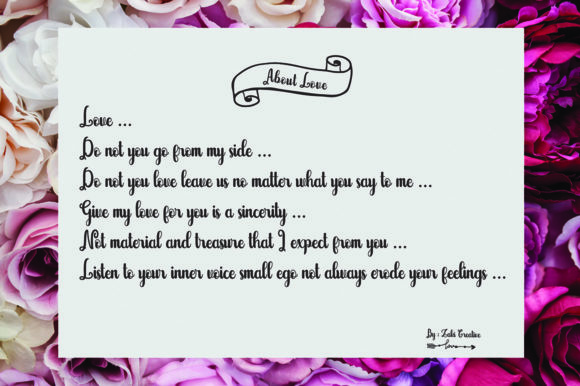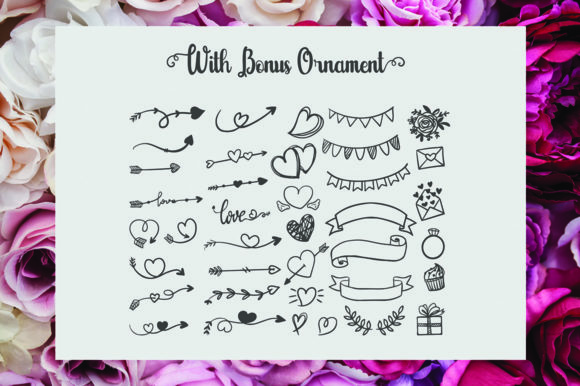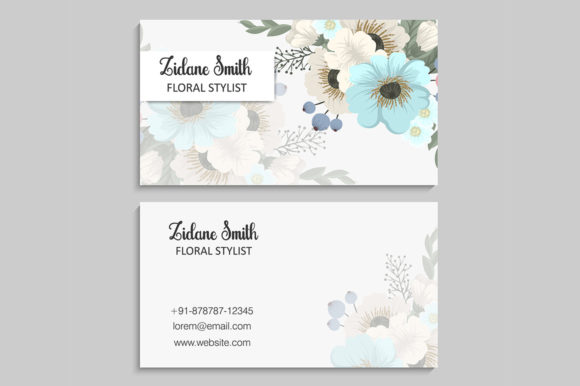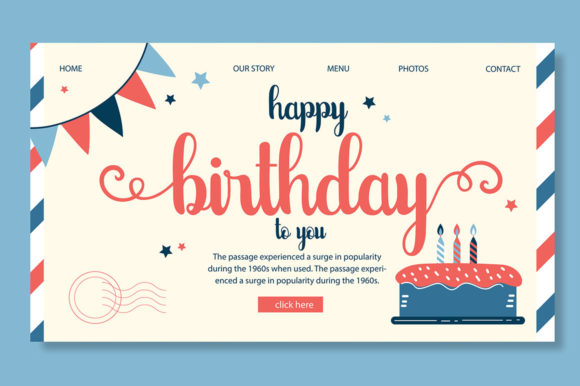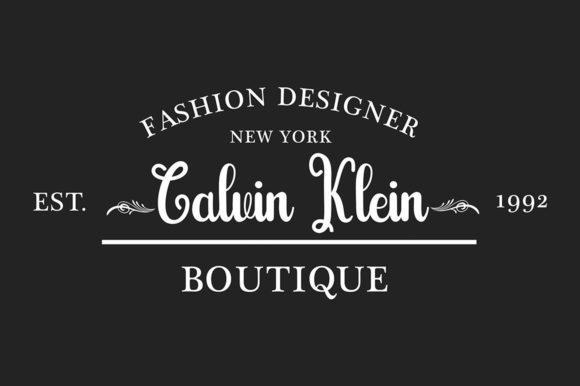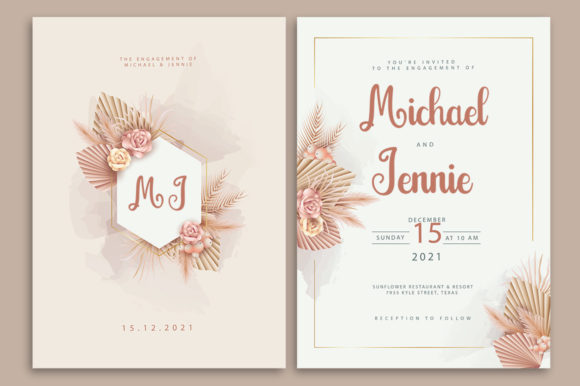
The Perfect Script for Your Next Design Project
There’s something magical about the moment when a design idea starts to take shape. The blank page is filled with possibilities, and the world of typography opens up like a treasure trove of creative possibilities. For designers, this moment is a thrill – and the right font can make all the difference. That’s where Baby Margareth Font comes in.
This stunning script font is a game-changer for any design project that requires a touch of elegance and sophistication. With its whimsical charm and beautiful curves, Baby Margareth Font is the perfect addition to any designer’s toolkit. Its PUA encoding means that designers can access all of its amazing glyphs and ligatures with ease, taking their designs to the next level.
Baby Margareth Font Key Features
- Font Family: Baby Margareth
- Unique Characteristics: A playful, cursive font with a whimsical feel, suitable for children’s books, invitations, and other creative projects
Baby Margareth Font Review
Overall, I think Baby Margareth is a charming font with a lot of potential. ✨ One of its greatest strengths is its unique, whimsical feel, which makes it perfect for creating a playful and childlike atmosphere in designs. The font’s rounded edges and soft lines give it a friendly and approachable vibe that’s sure to delight.
However, I do have a few reservations about Baby Margareth. ⚠️ Firstly, the font can be a bit too cursive for some designs, which may make it difficult to read at smaller font sizes. Additionally, the font’s limited character set and lack of bold or italic variations may limit its usability in certain contexts.
Here are some specific things to keep in mind when working with Baby Margareth:
- May not be suitable for formal or professional designs
- Not ideal for body text due to cursive nature
- Limited character set and no bold or italic variations
Despite its limitations, I think Baby Margareth is a great choice for designs that need a touch of whimsy and playfulness. Just be sure to use it in contexts where its unique features will shine.
For the best results, use Baby Margareth Font for titles, headings, and short text blocks.
It’s ideal for creating a playful, whimsical atmosphere in designs for children’s products, nursery decor, or baby-related branding.